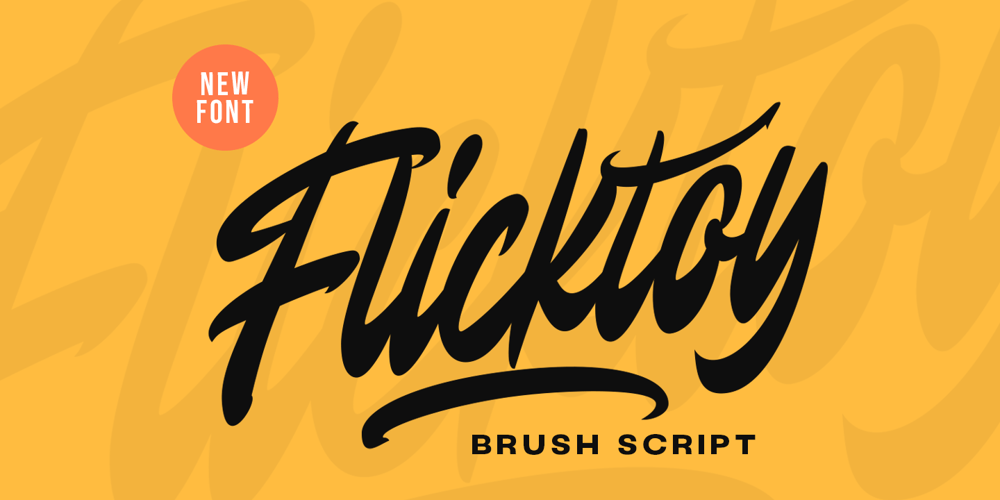
Flicktoy Font Family was designed by Hendry Juanda and published by Letterhend. Flicktoy contains 1 styles and family package options. Get trendy with Flicktoy, a brush script font that embodies the essence of modernity. With its stylish strokes and contemporary appeal, this font is perfect for designs seeking a fresh and urban edge.This font perfectly made to be applied especially in logo, and the other various formal forms such as invitations, labels, logos, magazines, books, greeting / wedding cards, packaging, fashion, make up, stationery, novels, labels or any type of advertising purpose.Features : Uppercase & lowercase Numbers and punctuation Alternates & Ligatures Multilingual PUA encoded We highly recommend using a program that supports OpenType features and Glyphs panels like many of Adobe apps and Corel Draw, so you can see and access all Glyph variations.